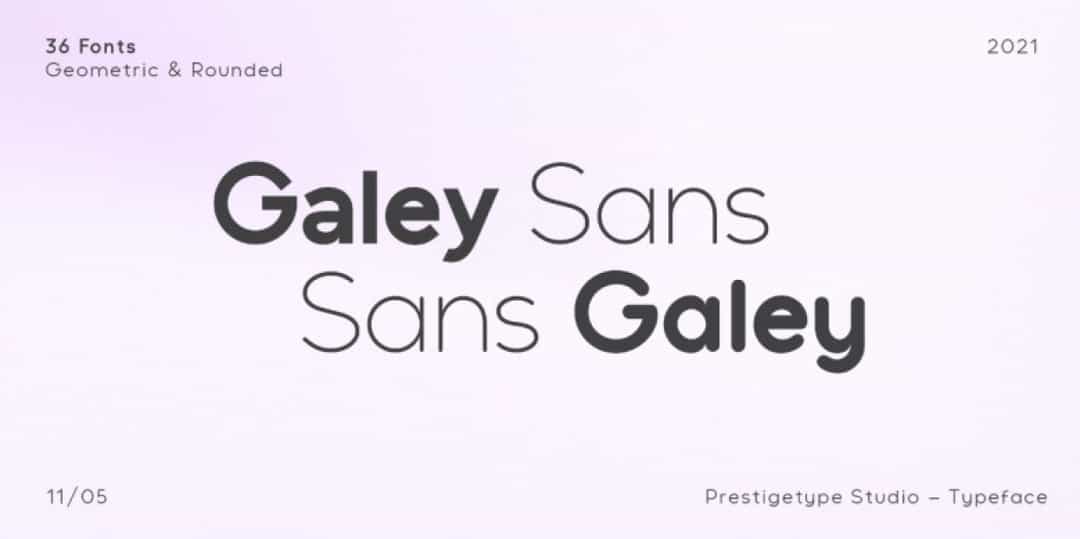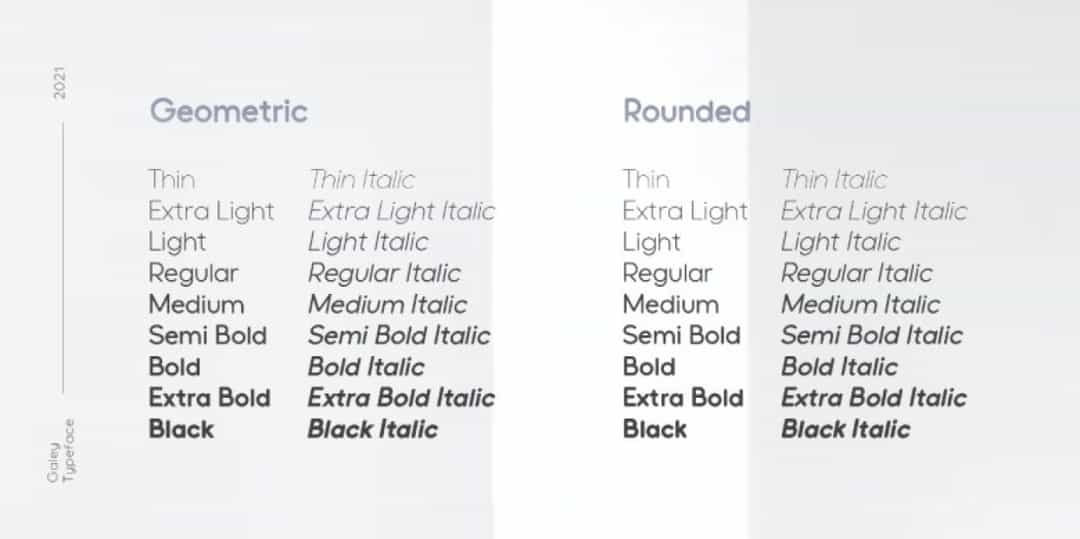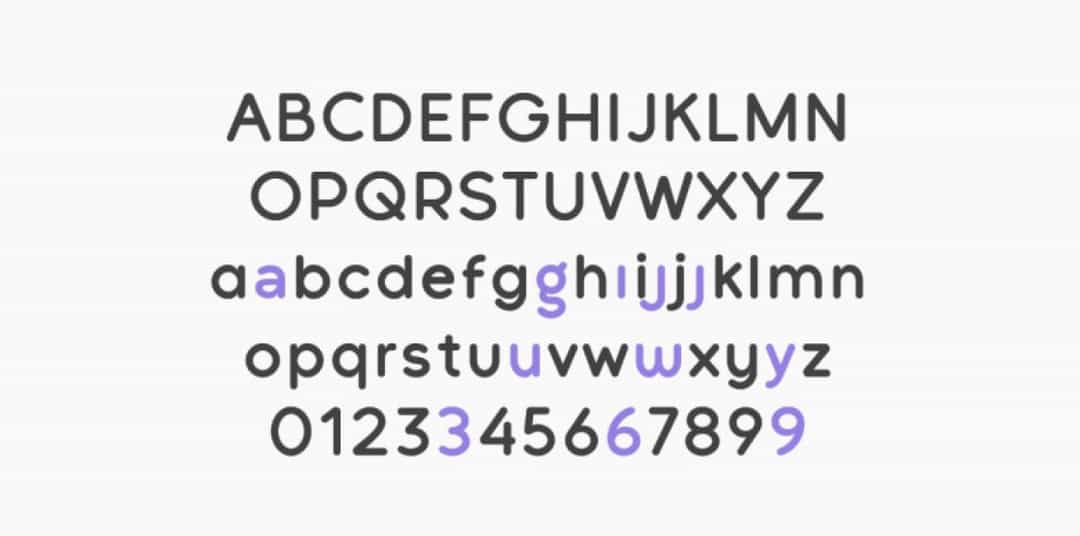
Galey is a modern, clean sans-serif style font with geometric and rounded features. Available in 18 weights that feature italics as well as font sizes ranging from black to thin and 592 glyphs per weight, Galey comes equipped with Open Type features to support various languages (+Cyrillic). Each weight also boasts its own distinctive characters that come complete with Open Type features that enable extended support of specific languages (+Cyrillic). Ideal for branding, display headlines, logo design, text website designs as well editorial design applications.